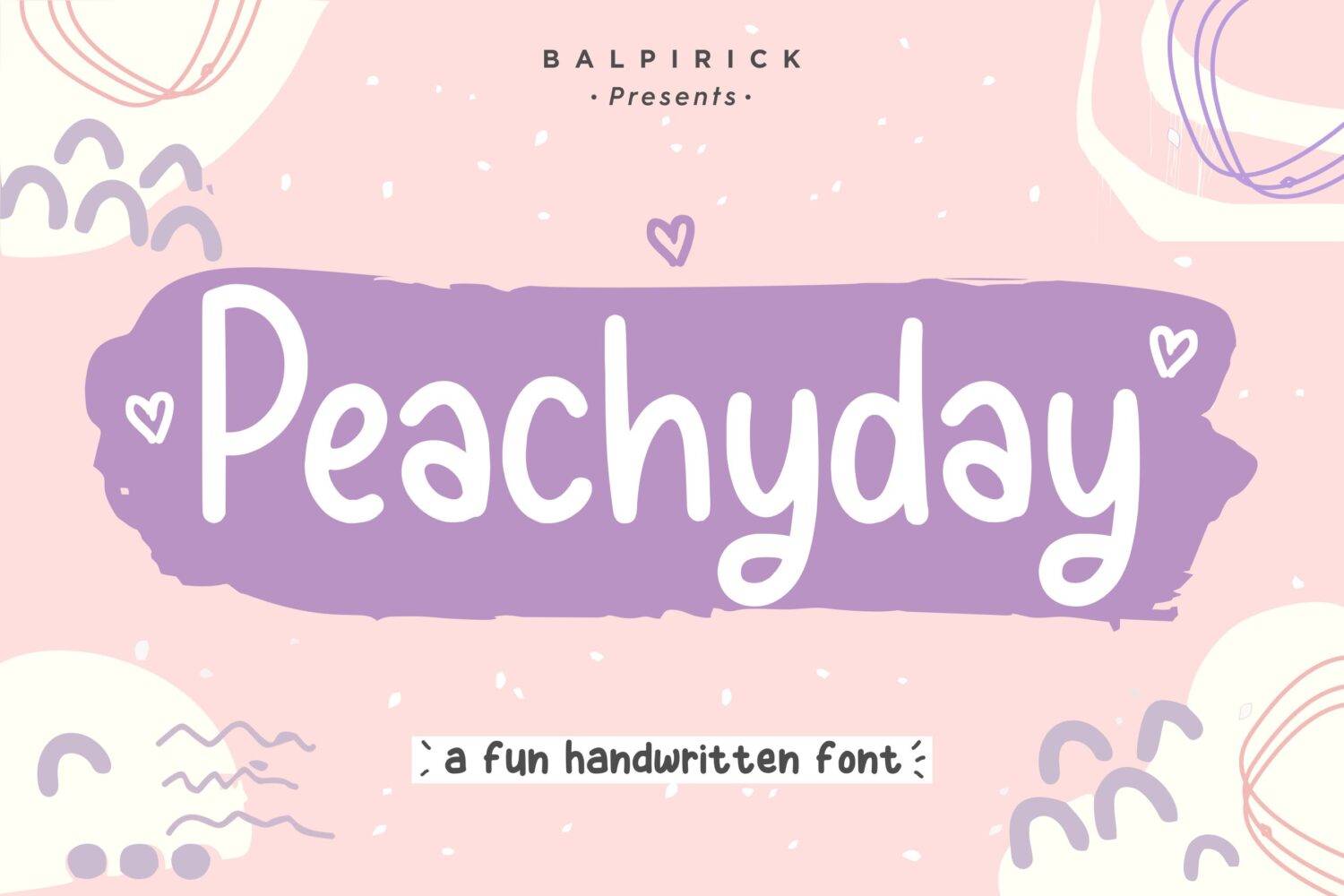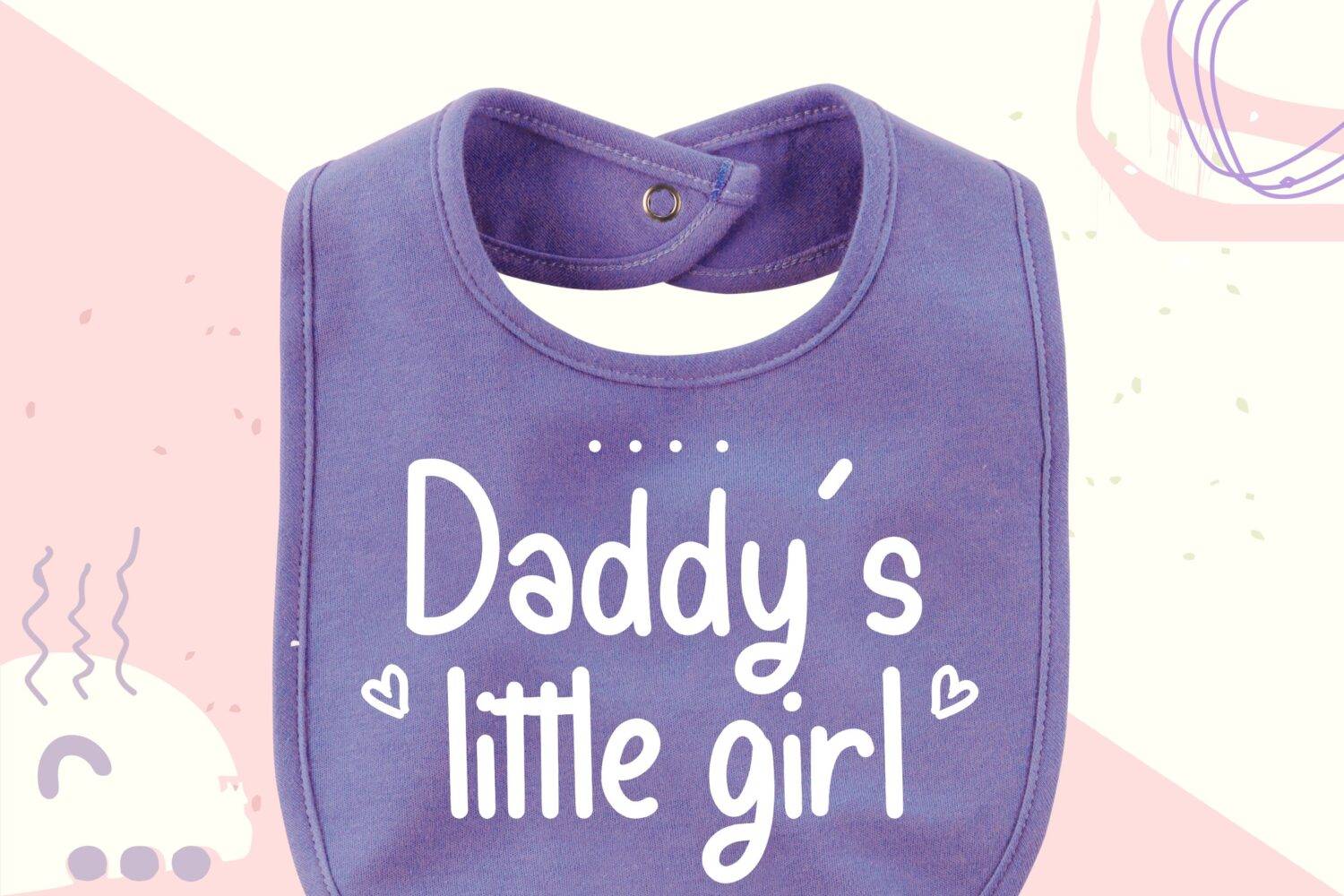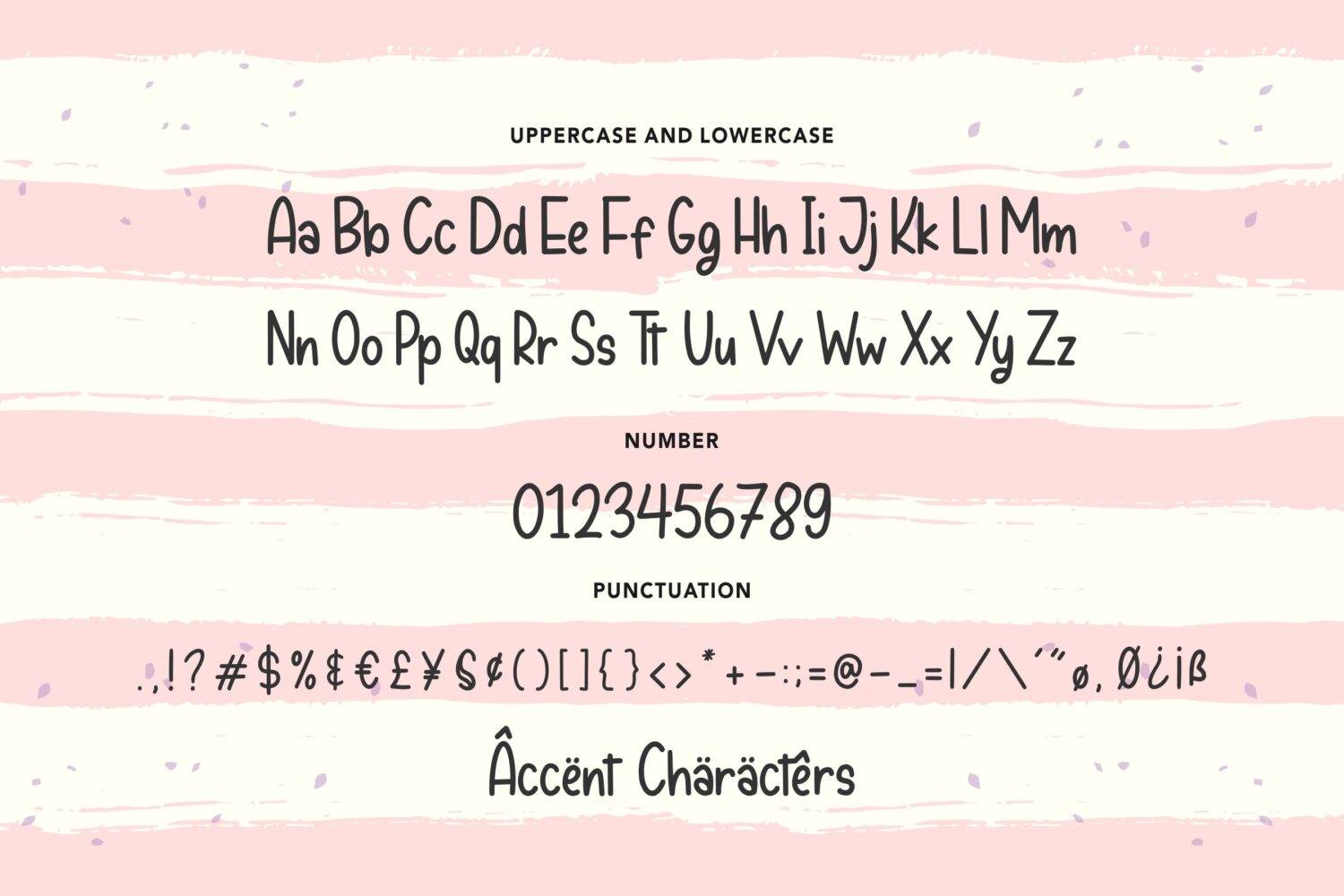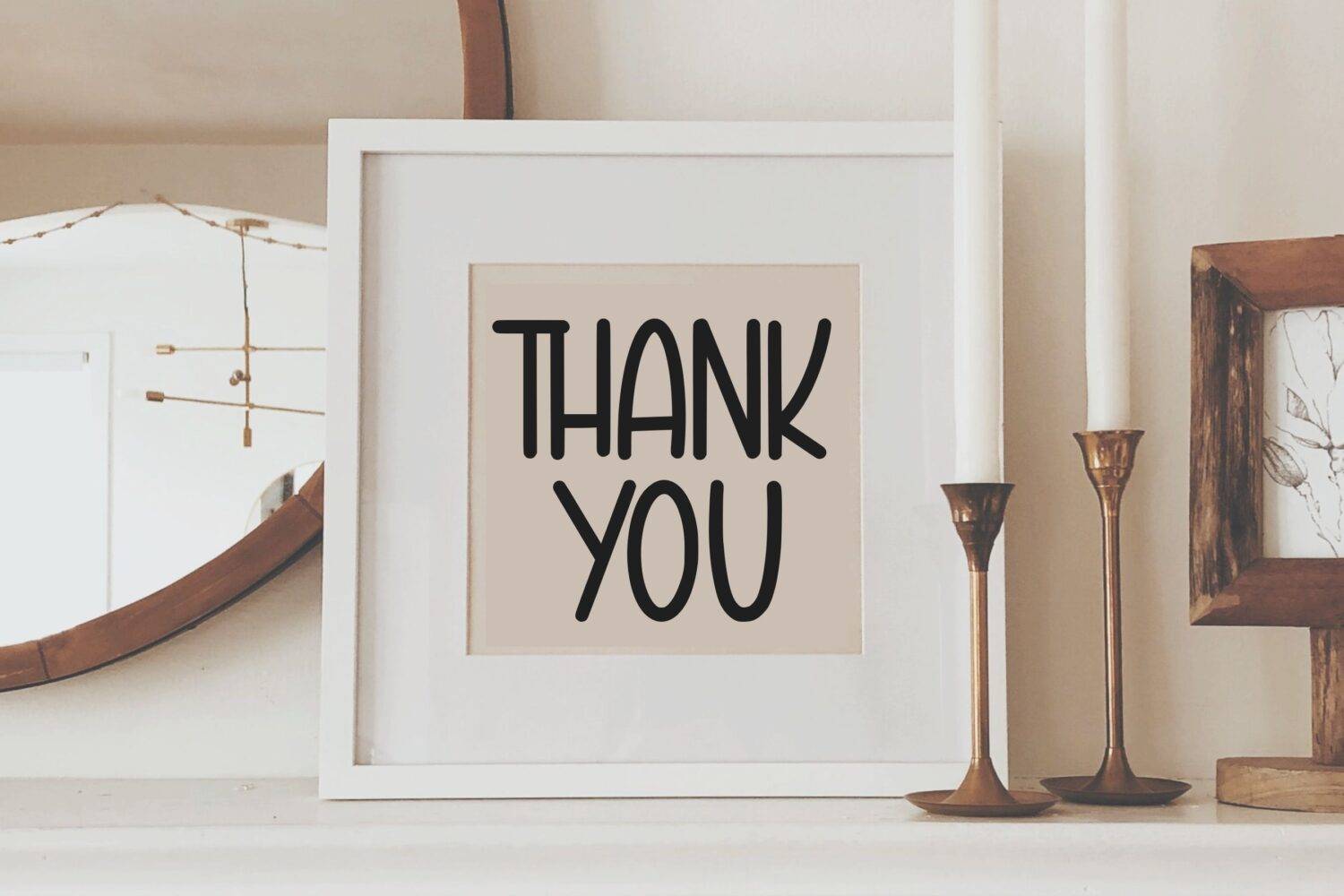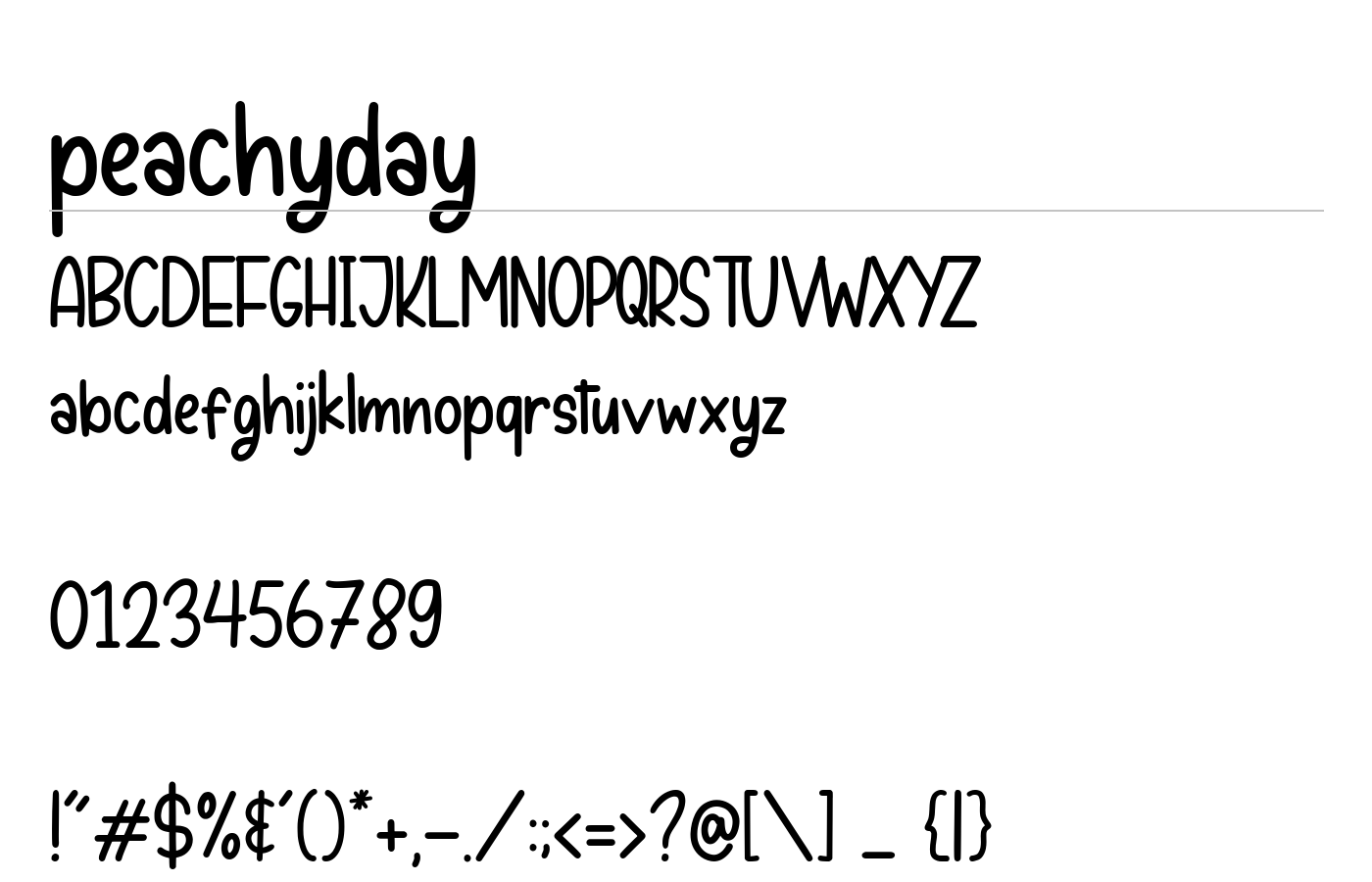
Peachyday is a playful and casual sans serif font with a handwritten feel, characterized by its tall, narrow letterforms and slightly irregular strokes that add charm and personality. Its light weight and generous x-height make it highly readable, while the rounded edges and whimsical style evoke friendliness and creativity. Ideal for informal branding, children’s content, and fun, approachable designs, Peachyday works well in headlines and display text where a lively, personal touch is desired.
Peachyday Font
About Peachyday Font
| Font family | Peachyday Font |
| Designer | Balpirick Studio. 2020. |